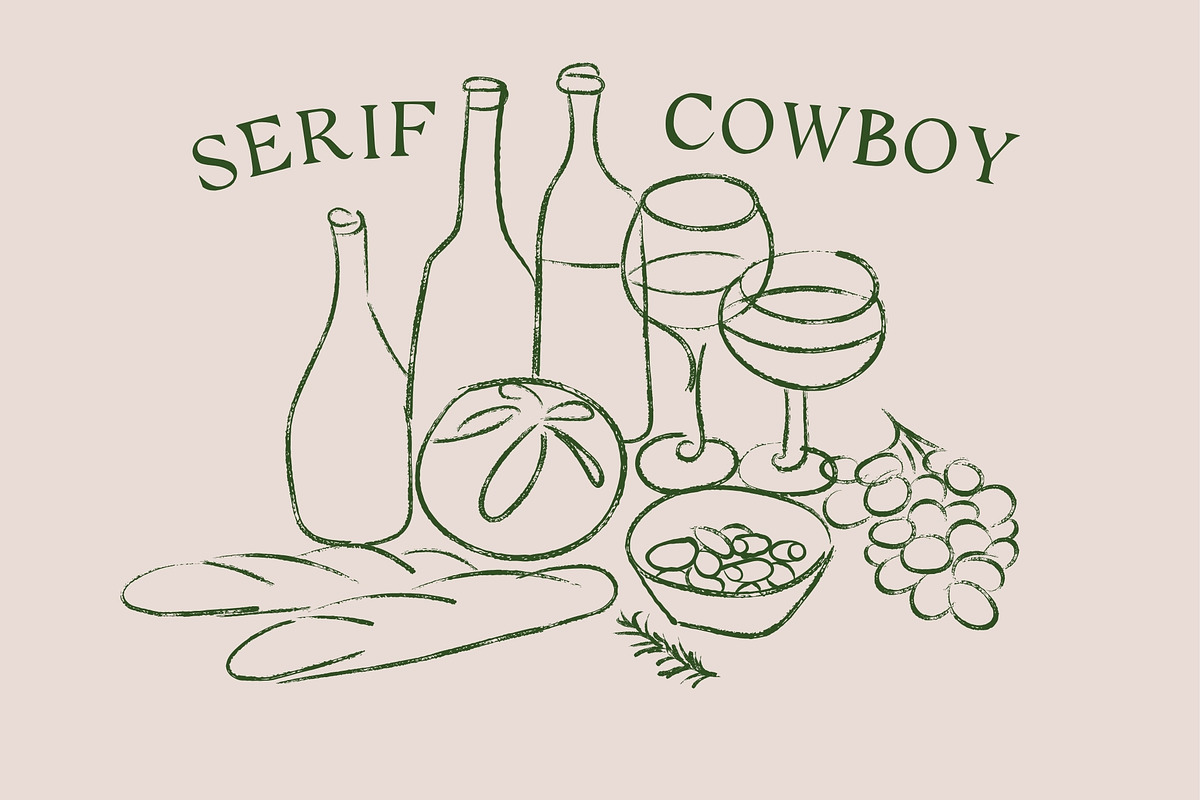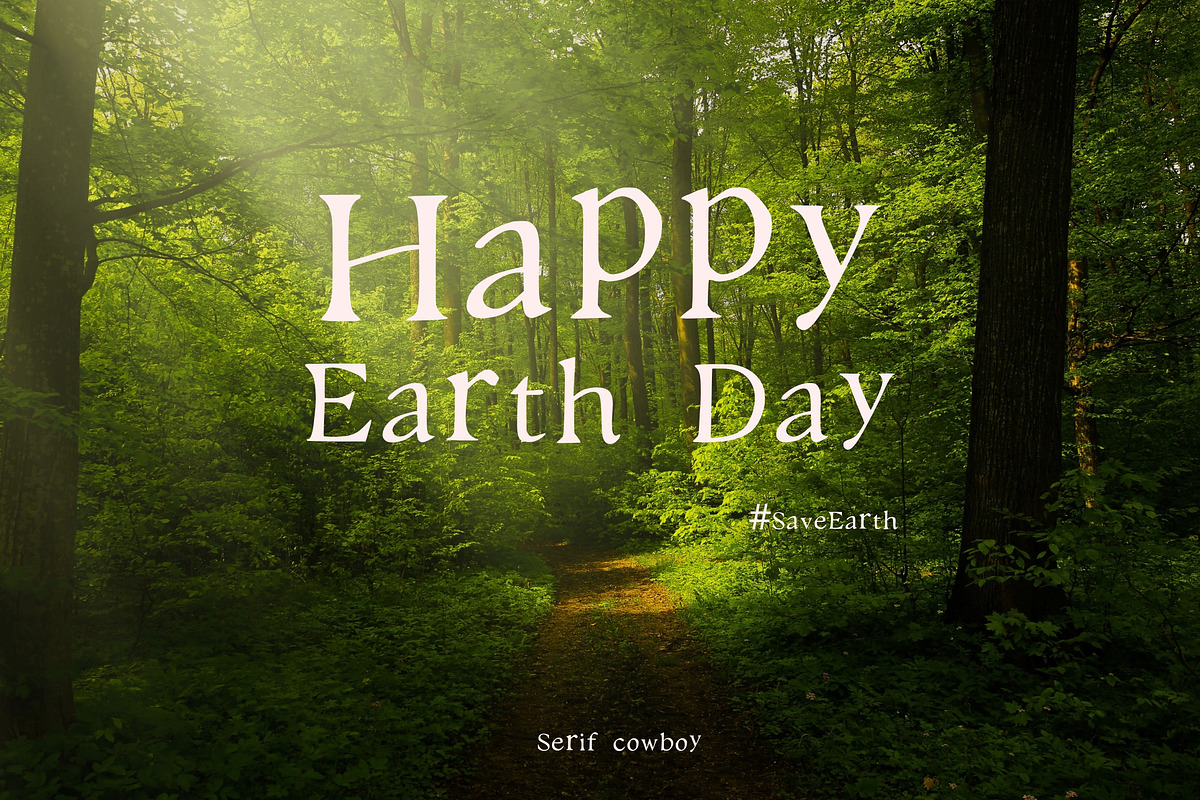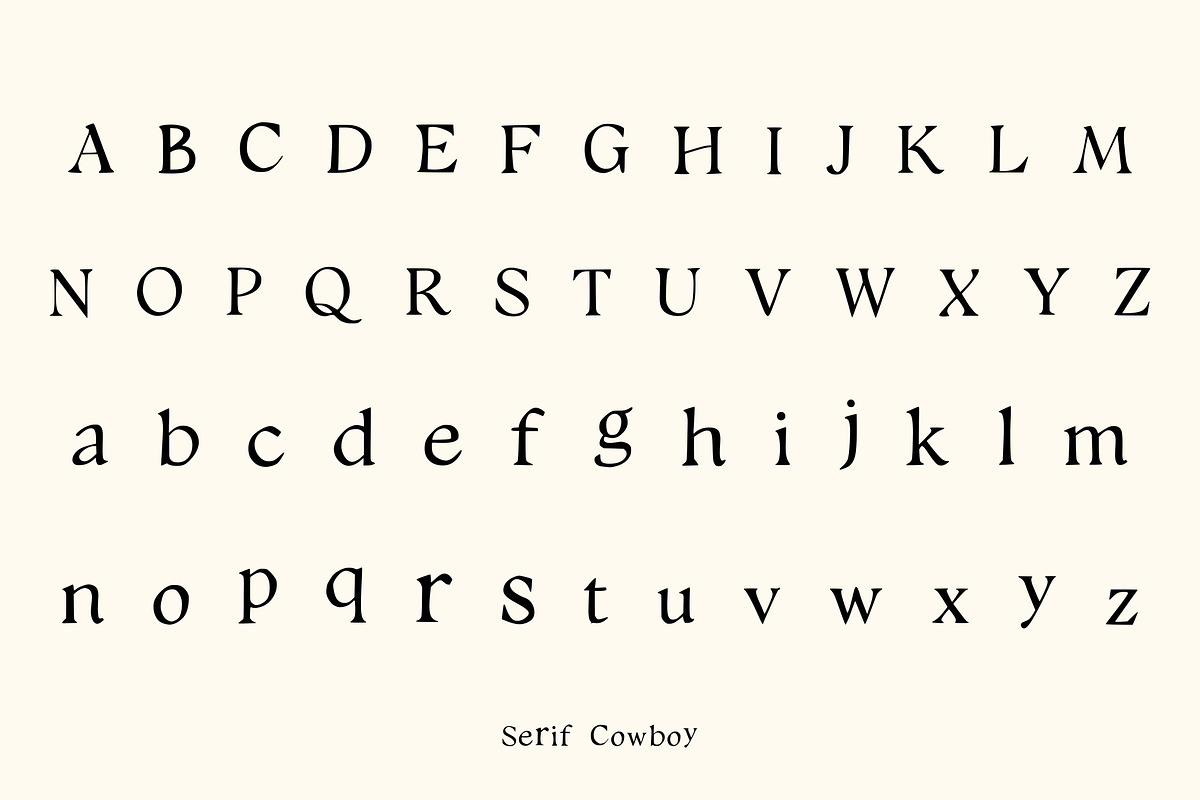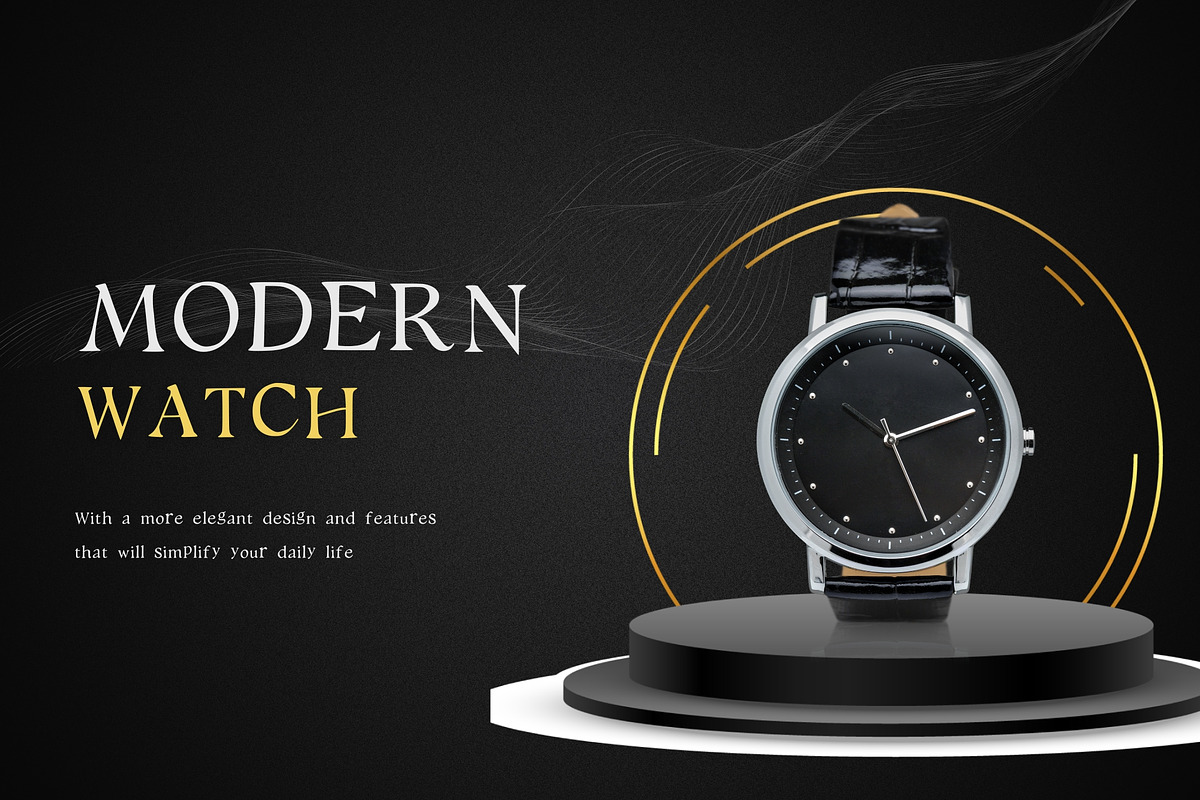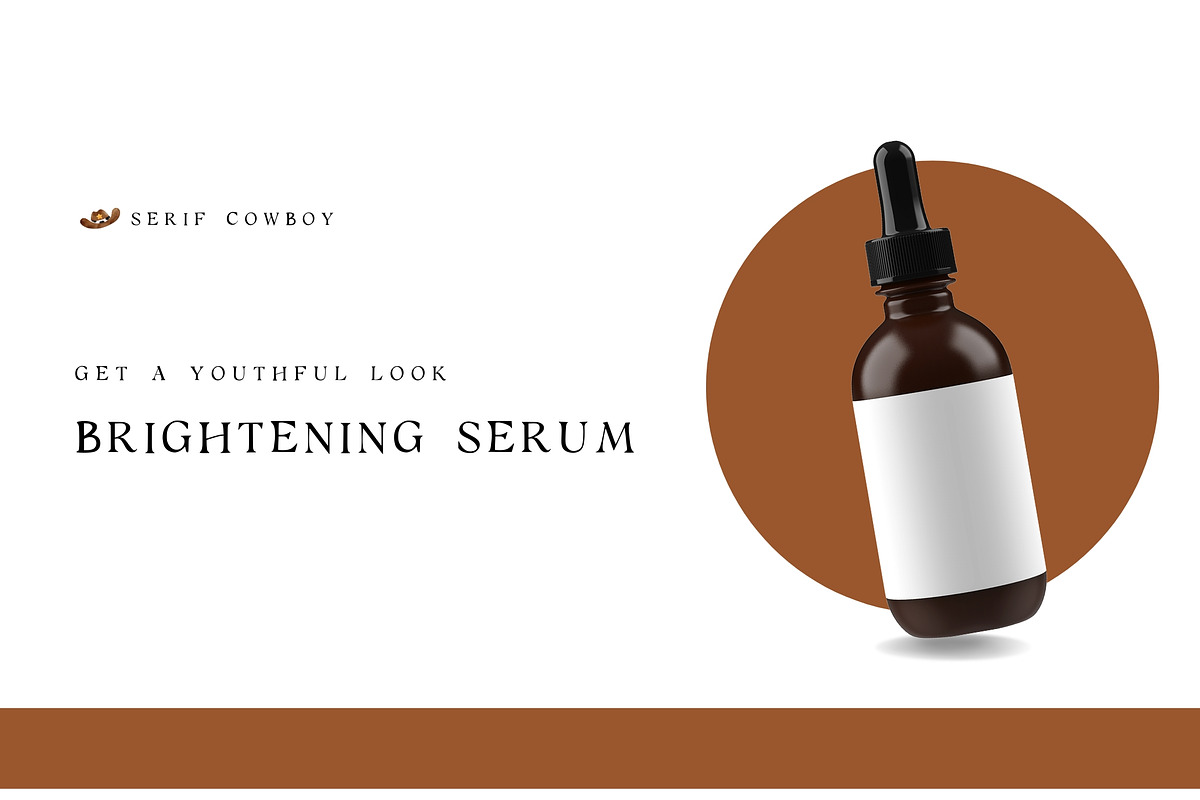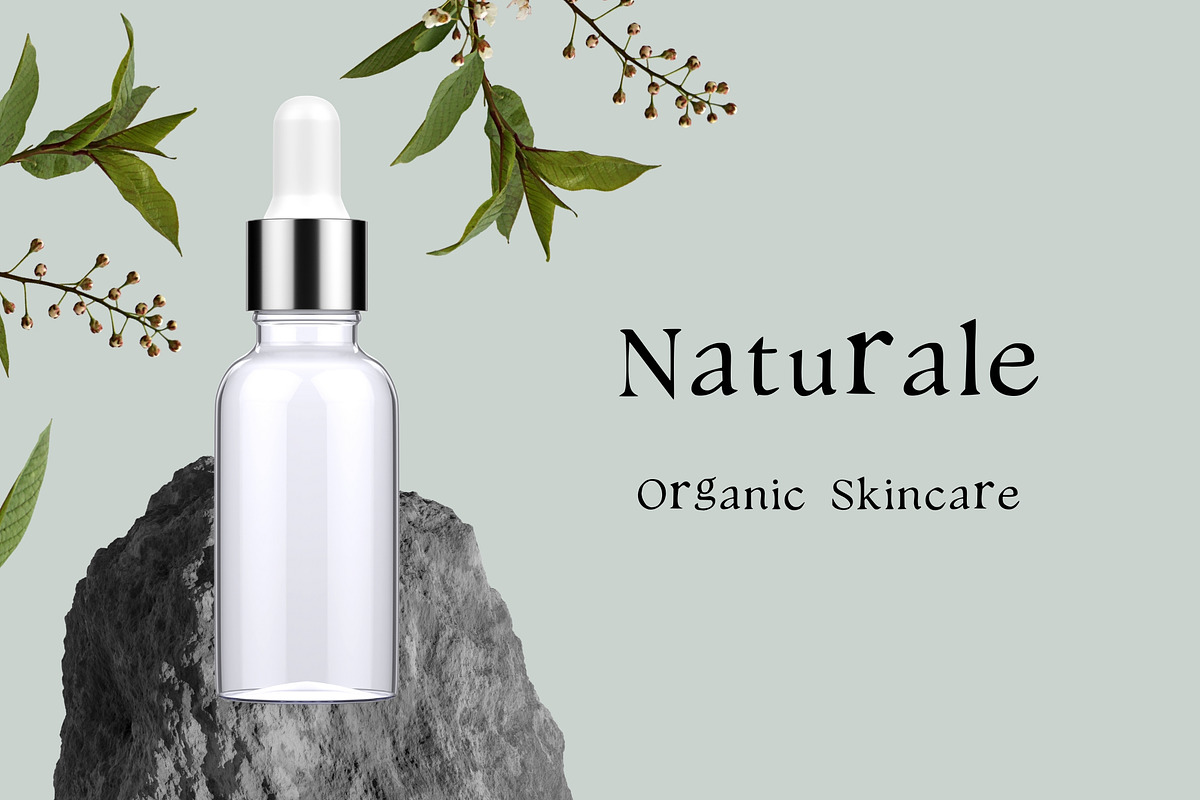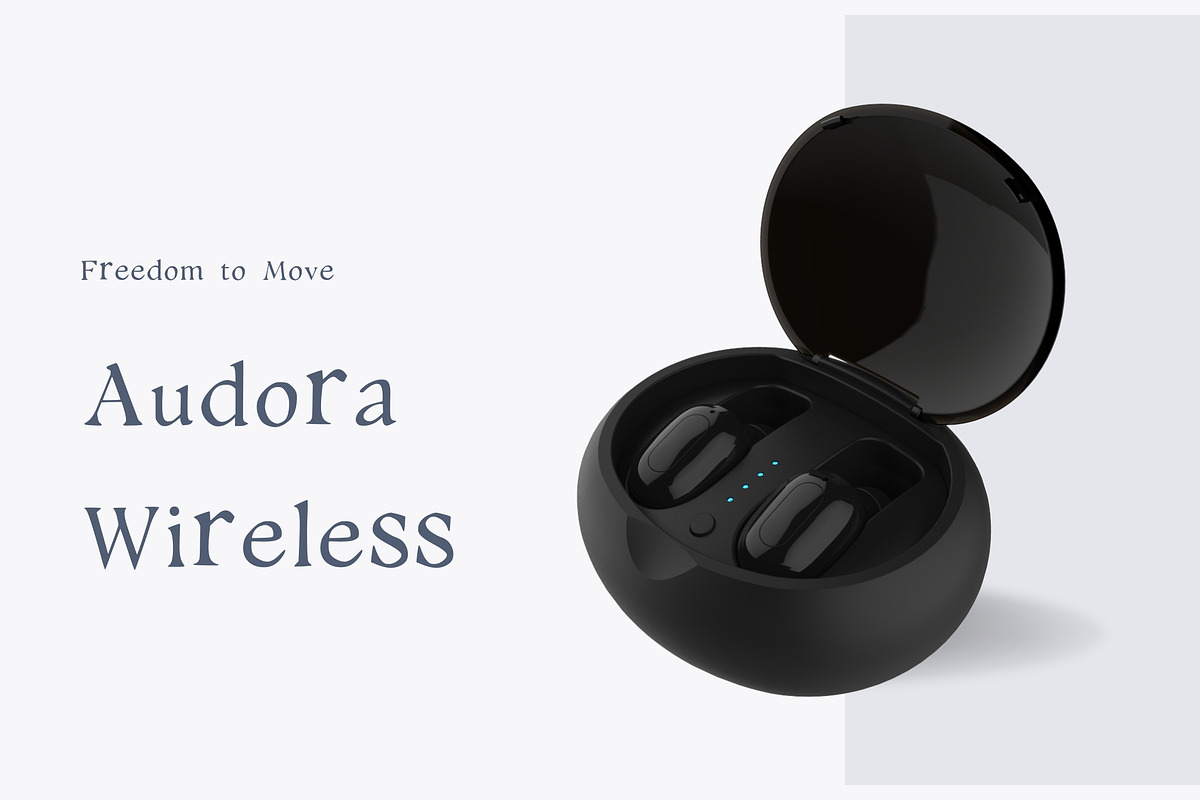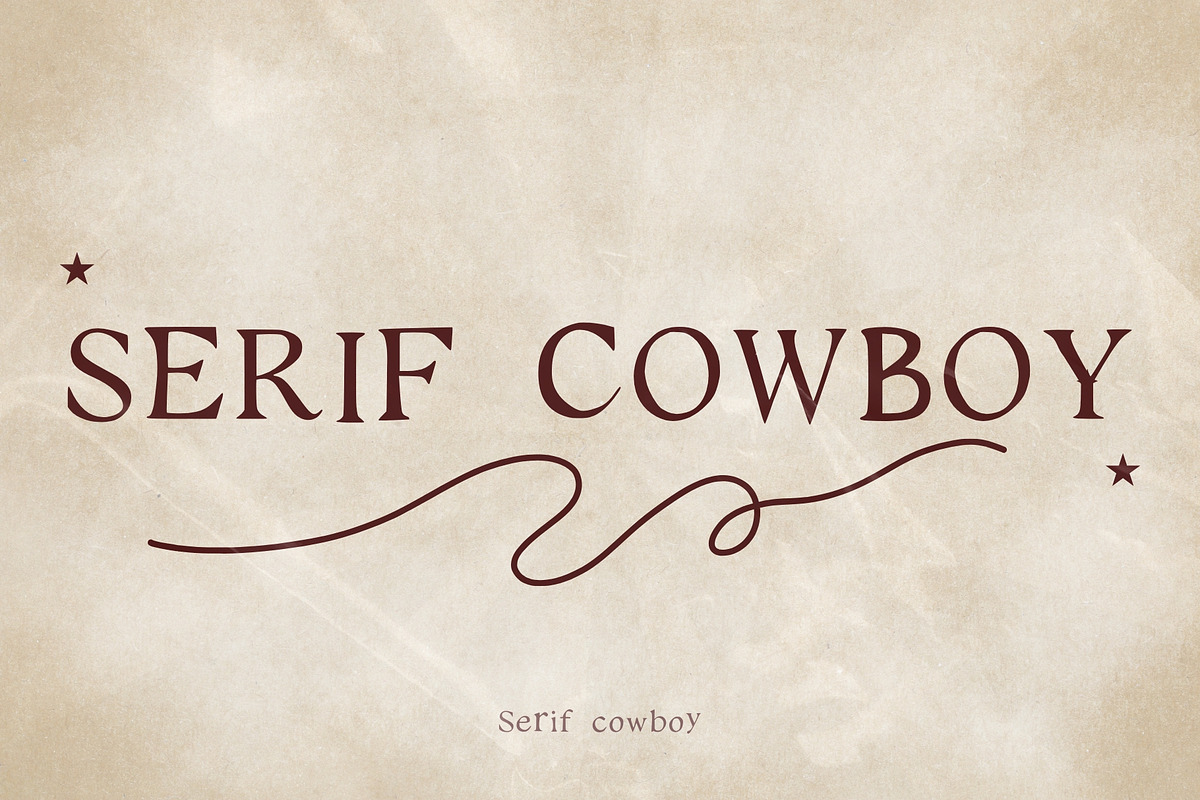
Serif Cowboy – Rustic Elegance
Bring a touch of the wild frontier to your creative work with Serif Cowboy – a bold and stylish type design crafted for nature-inspired visuals, digital content, and modern web experiences. Whether you're designing for outdoor brands, vintage aesthetics, western-themed campaigns, or minimalist websites, this unique and versatile creation blends rugged charm with clean, professional lines.
Perfect for logos, branding, headlines, social media graphics, and anything that needs a hint of adventure with a polished edge. Serif Cowboy captures the spirit of the great outdoors while staying sharp for today’s digital standards.
Make your designs stand out with the timeless look of Serif Cowboy.